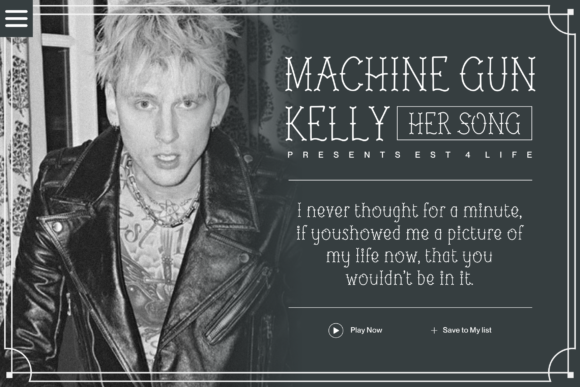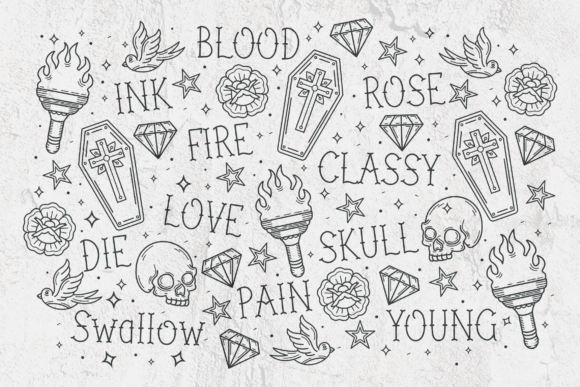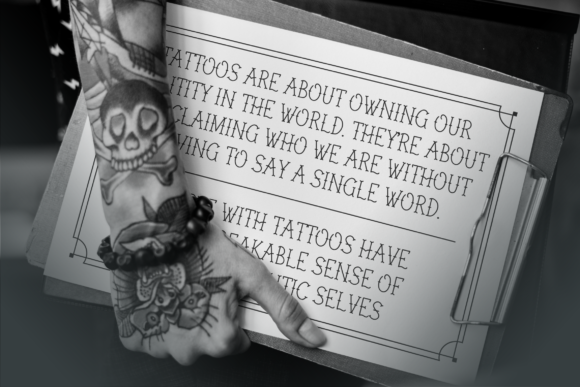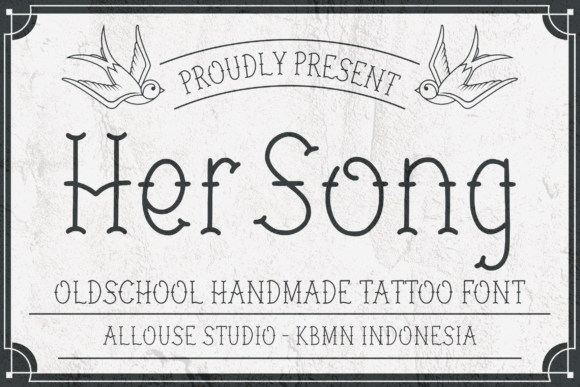
Introduction to Her Song Font
Her Song is a thin lettered and unique display font.
It can be used for various purposes such as logos, wedding invitations, headings, t-shirts, letterhead, signage, labels, news, posters, badges and so much more .
Her Song Font offers exceptional quality and versatility, making it a valuable addition to your design toolkit. Whether you’re creating for personal projects or commercial use, Her Song Font delivers professional results.